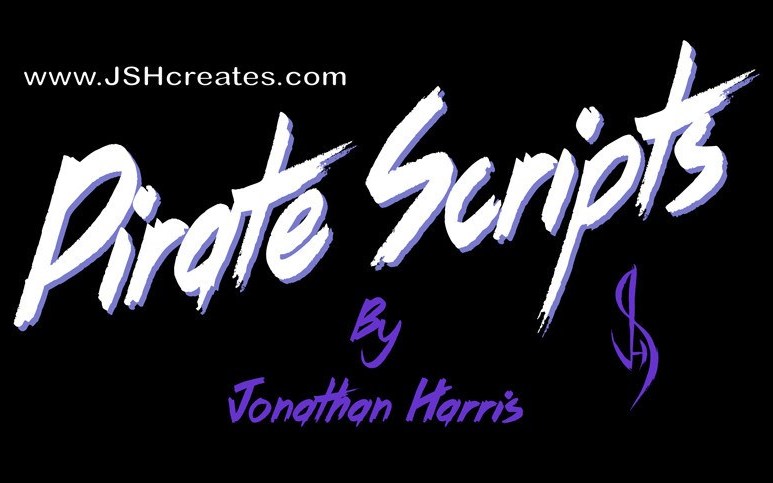
Pirate Scripts Font
Up for grabs is a cool hand written font “Pirate Scripts”. It was designed by Jonathan S. Harris, You can use this font for personal purpose.